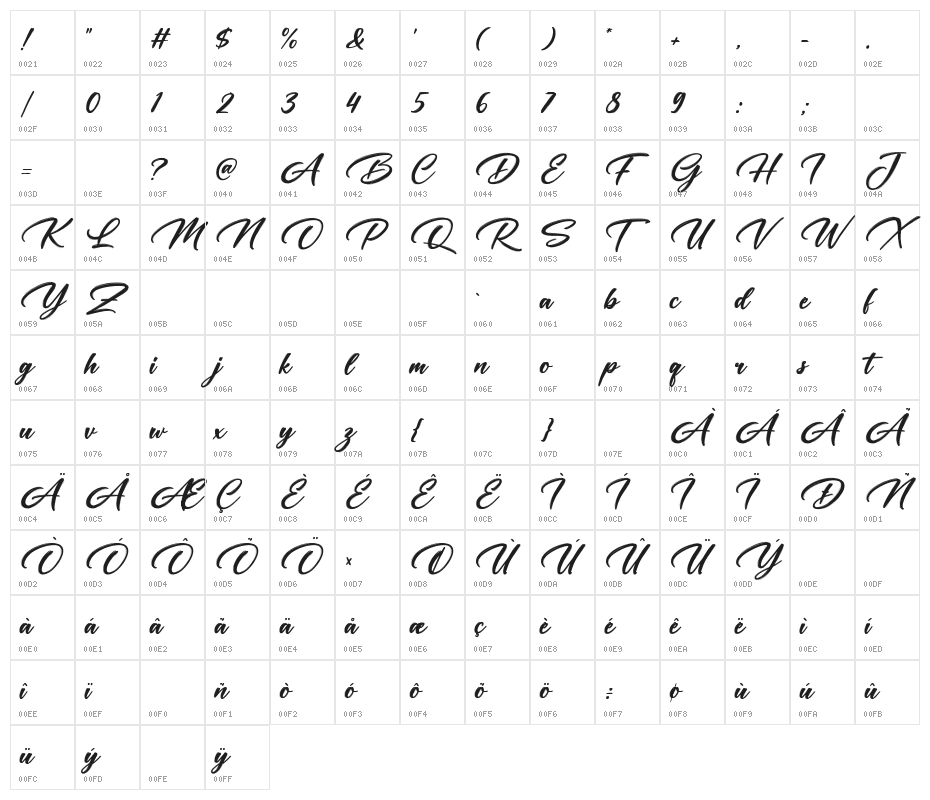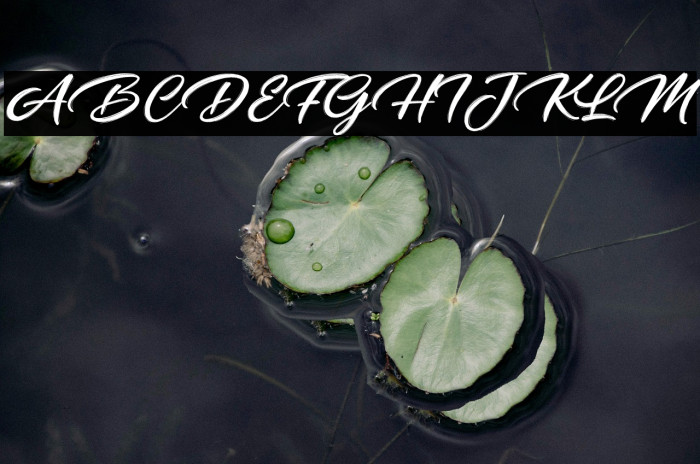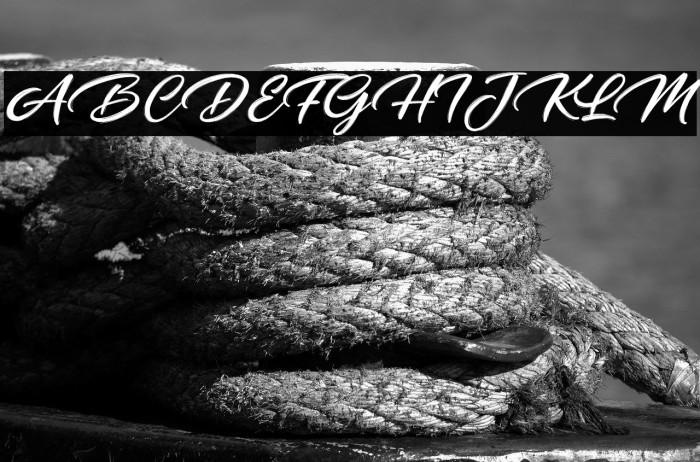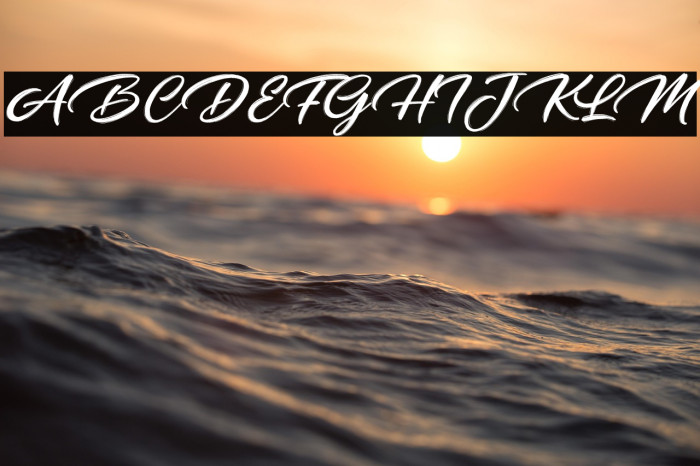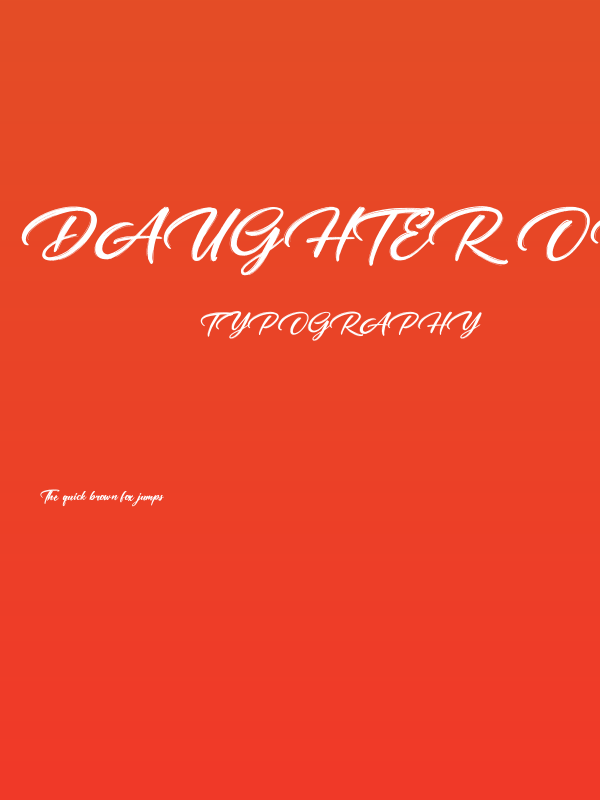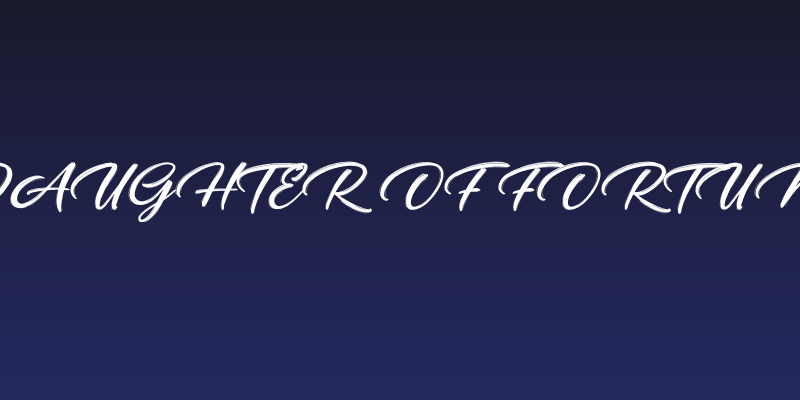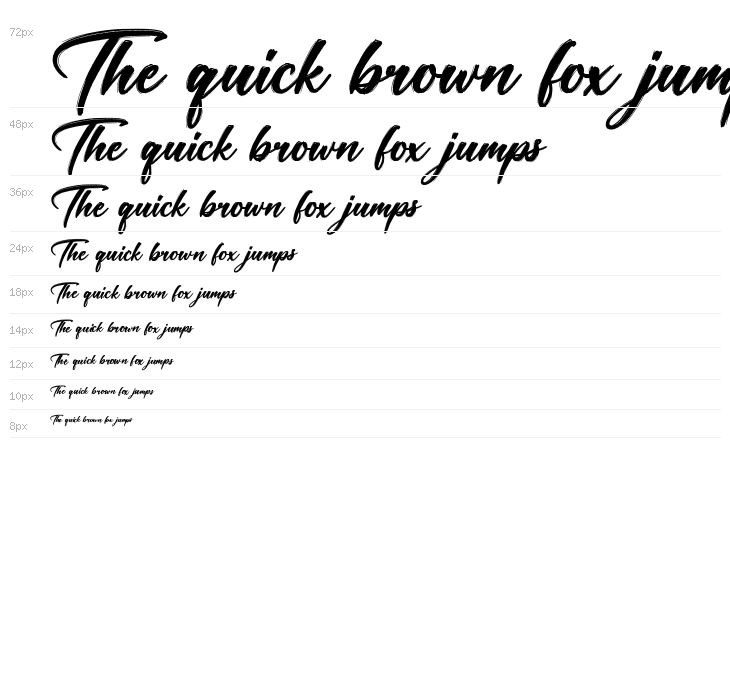
Daughter of Fortune Font
Daughter of Fortune Description
This font exudes a classic and elegant script style, characterized by its flowing, cursive letterforms. The uppercase letters are gracefully connected, while the lowercase letters maintain a smooth, continuous flow, enhancing readability. The numerals and special characters are designed with the same fluidity, ensuring a cohesive look across all text. The strokes are moderately thick, providing a balanced contrast that adds to the font's legibility and aesthetic appeal. This font is perfect for projects that require a touch of sophistication and elegance.
| Proposed Projects | Ideal for wedding invitations, elegant branding, greeting cards, and high-end product packaging. |